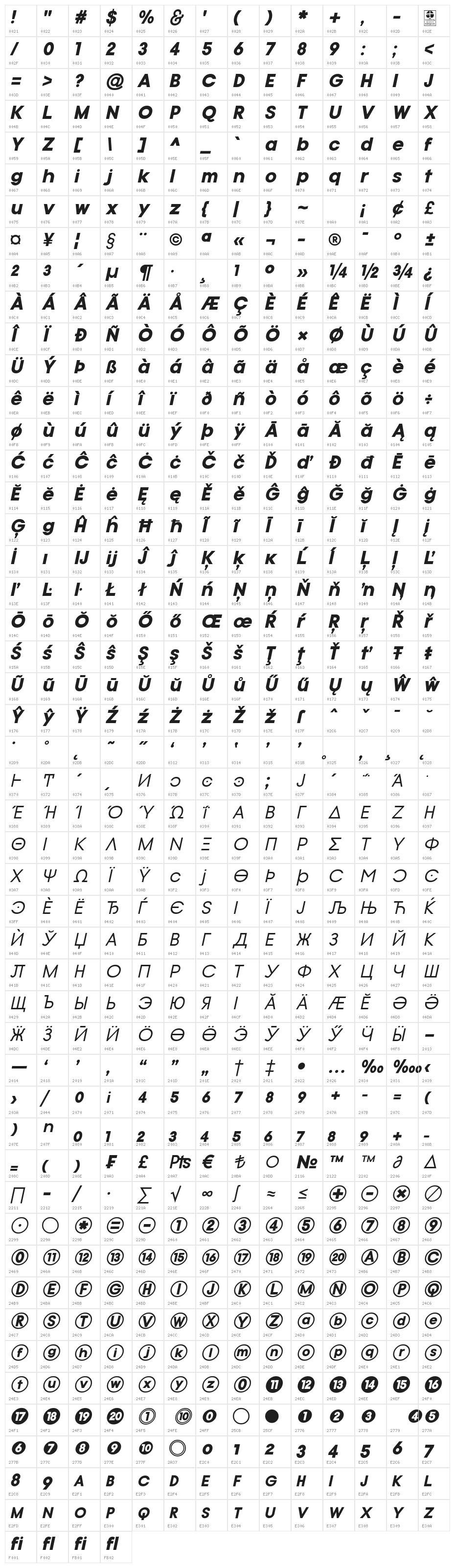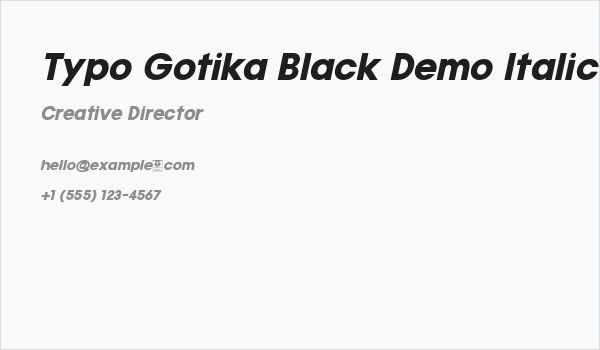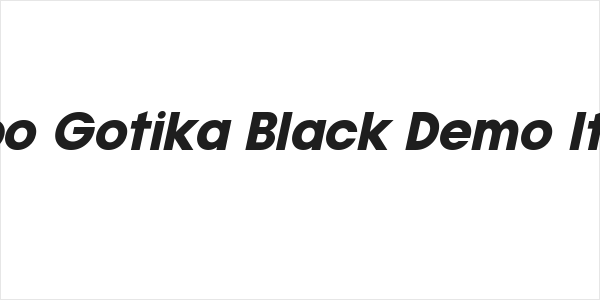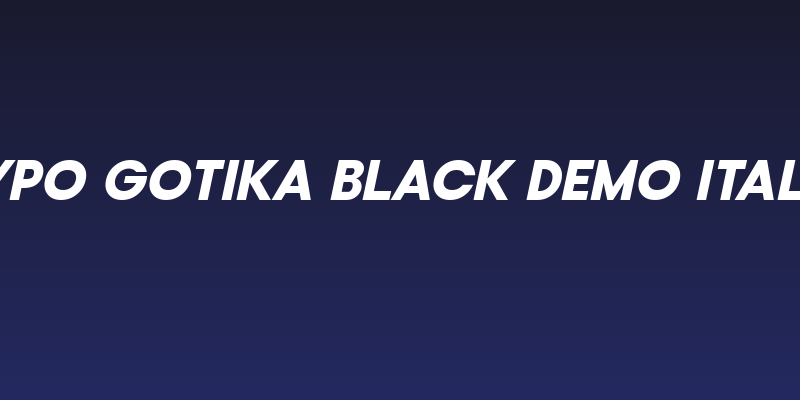
Typo Gotika Black Demo Italic Font
Typo Gotika Black Demo Italic Description
This font features a bold and dynamic style with a strong presence, characterized by its thick strokes and italicized form. The letters are slightly slanted, adding a sense of movement and urgency. The uppercase and lowercase characters maintain a consistent weight, ensuring readability while conveying a modern and assertive tone. The numerals and special characters are designed to match the overall boldness, making them suitable for impactful displays. The font's design is clean and straightforward, with a focus on clarity and strength.
Proposed ProjectsIdeal for branding, headlines, posters, and any project requiring a strong, modern aesthetic.